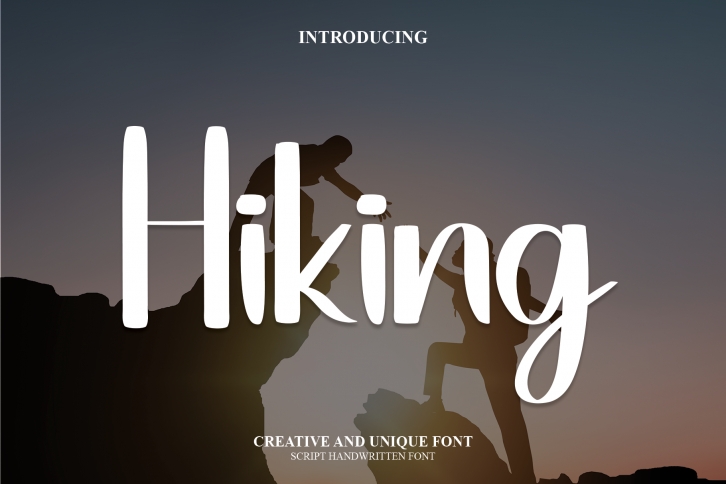
This is a sweet, romantic and beautiful script font. It features beautiful curves in each letter. This font is PUA coded which means you can access all the glyphs and sweeps easily!